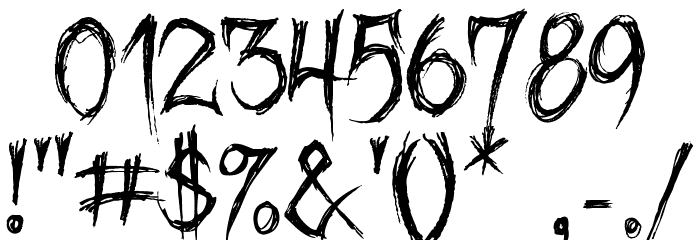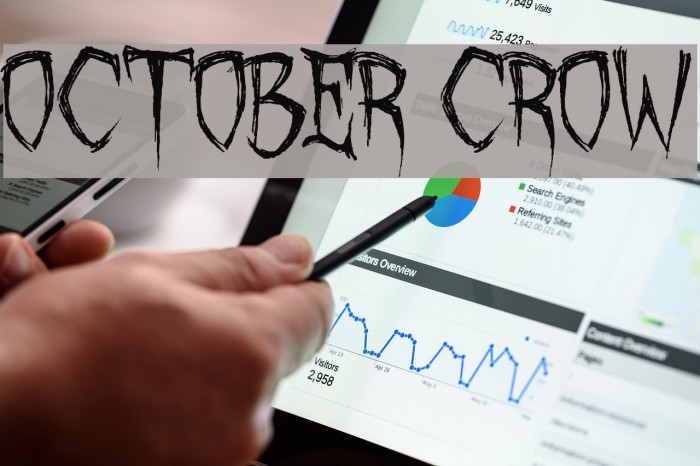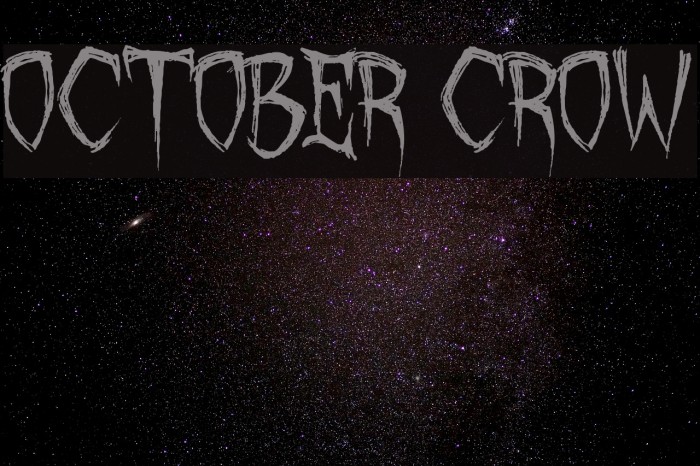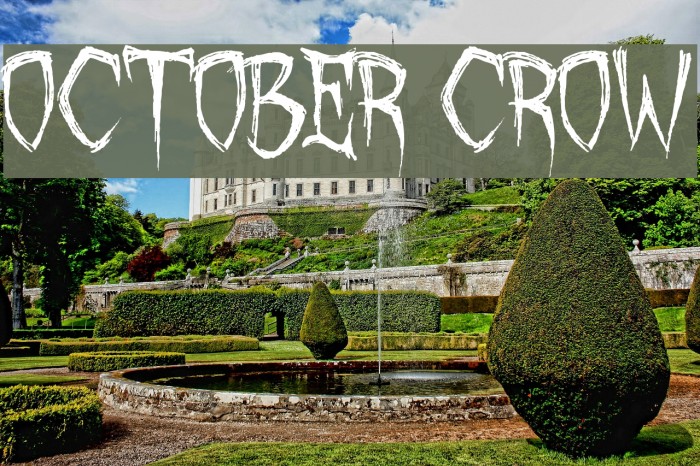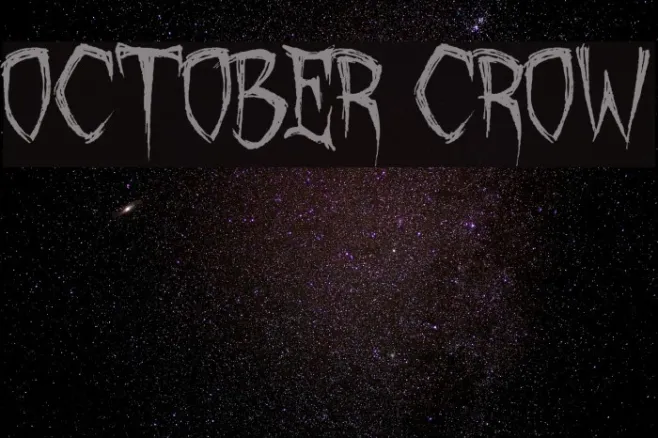
October Crow Font
This font features a striking, jagged design reminiscent of sharp claws or thorns, giving it a distinctly eerie and gothic appearance. The characters are uneven and irregular, with exaggerated spikes and angles that create a sense of movement and chaos. The uppercase and lowercase letters maintain a consistent style, with the numbers and special characters following suit. This font's unique style makes it ideal for projects that require a dramatic and edgy aesthetic, such as horror-themed designs or Halloween promotions.
A jagged, gothic font with sharp, thorn-like characters.
- Proposed Projects: Ideal for horror-themed designs, Halloween promotions, and edgy graphic projects.
- Overall Style: Gothic, Dramatic, Edgy
- Use Case: Headlines, Posters, Themed Events